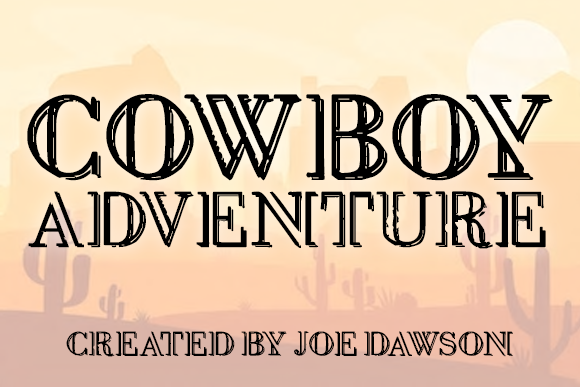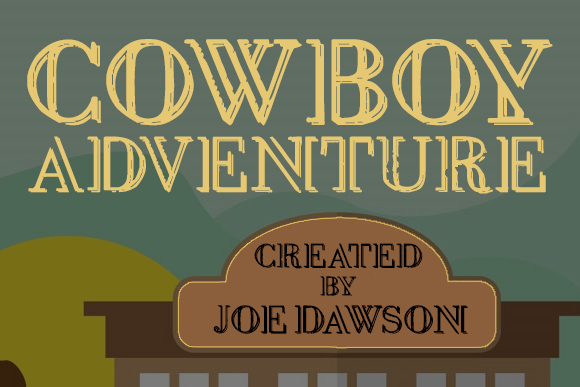
Introduction to Cowboy Adventure Font
Cowboy Adventure is a strong, decorative font.
Perfect for bringing some adventure and fun to all your projects .
Key Features of Cowboy Adventure Font
Why Choose Cowboy Adventure Font?
Cowboy Adventure Font offers exceptional quality and versatility, making it a valuable addition to your design toolkit. Whether you’re creating for personal projects or commercial use, Cowboy Adventure Font delivers professional results.